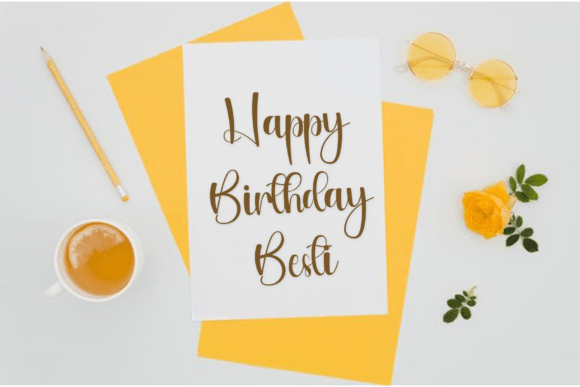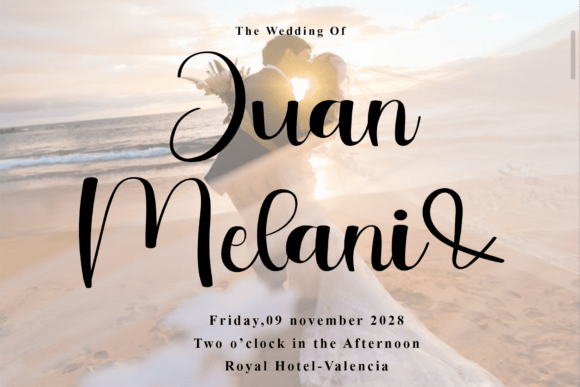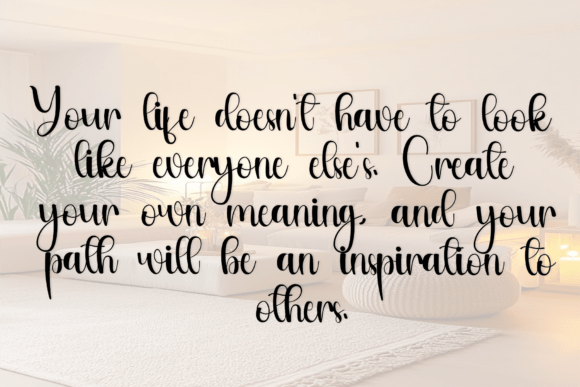
The Decorative Font: Elevate Your Design with Modern Calligraphy
The Decorative font is a masterclass in modern calligraphy and flourish. Its stunning, exaggerated loops and dot-accented ‘i’ add a unique focal point to every word. This typeface is designed for those who want their text to be the centerpiece, making it perfect for luxury packaging, high-fashion magazine covers, and interior design branding.
- ✨ Stunning, exaggerated loops that add a touch of elegance to any design
- ✅ Unique dot-accented ‘i’ that adds a focal point to every word
- 💫 Perfect for luxury packaging, high-fashion magazine covers, and interior design branding
- 🎨 Highly versatile and can be paired with a variety of colors and layouts
While the Decorative font is a beauty, it’s not without its limitations. ⚠️ It’s best used for short phrases, names, or titles, as its intricate linework can get lost in longer blocks of text. Additionally, it may not be the best choice for body text or smaller font sizes, as its delicate features can become illegible.
The Designer Inspiration Behind the Decorative Font
The Decorative font was inspired by the works of modern calligraphers who sought to push the boundaries of traditional lettering. With its stunning loops and flourishes, this font is a testament to the art of modern calligraphy. The designer behind the Decorative font wanted to create a typeface that would add a touch of elegance and sophistication to any design, while also providing a unique and professional flair.
| Font Name | Decorative Font |
| Author | Plafont store |
Q: What is the Decorative font best used for?
A: The Decorative font is best used for short phrases, names, or titles where the beauty of the characters can truly shine. It’s perfect for luxury packaging, high-fashion magazine covers, and interior design branding.
Q: Can I use the Decorative font for body text?
A: While the Decorative font is a beautiful typeface, it’s not recommended for body text or smaller font sizes, as its delicate features can become illegible.
Q: Is the Decorative font easy to read?
A: The Decorative font is designed to be elegant and sophisticated, but it may not be the most readable font for longer blocks of text. It’s best used for short phrases or titles where the beauty of the characters can truly shine.